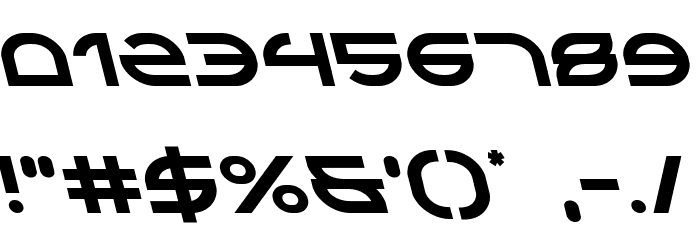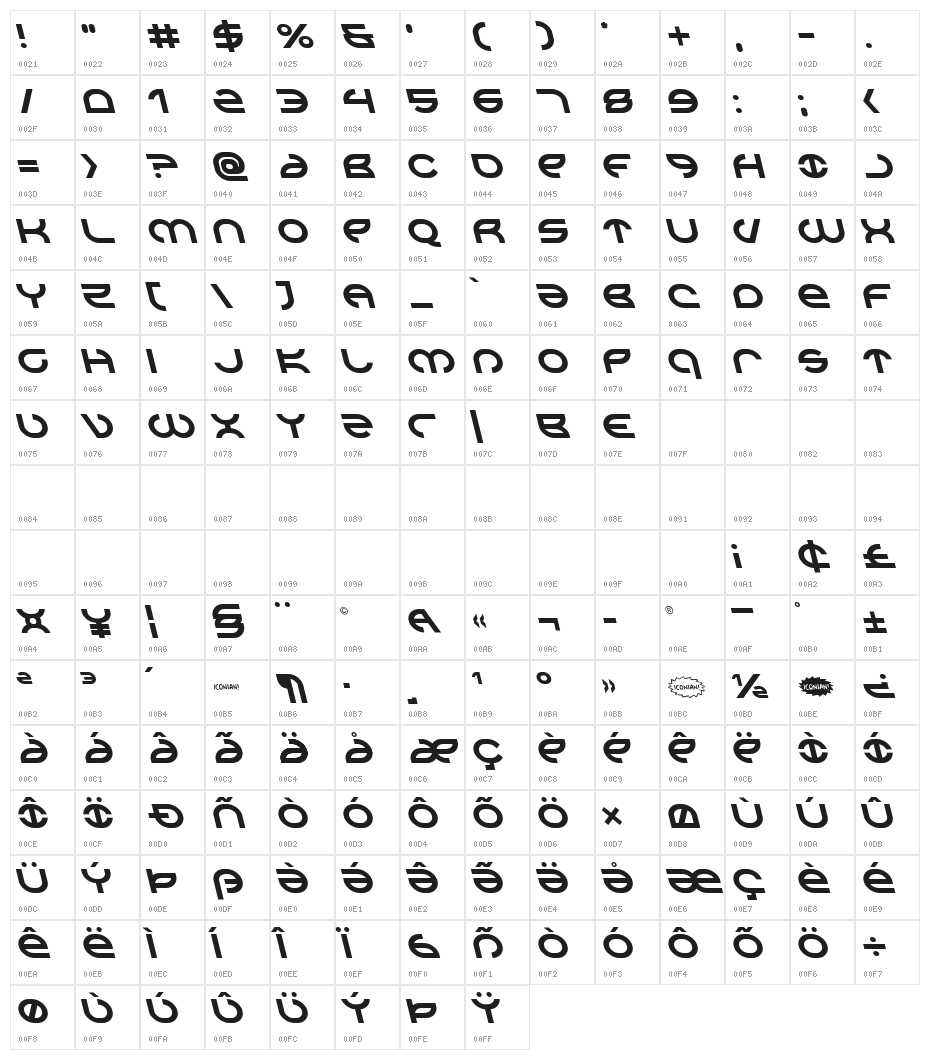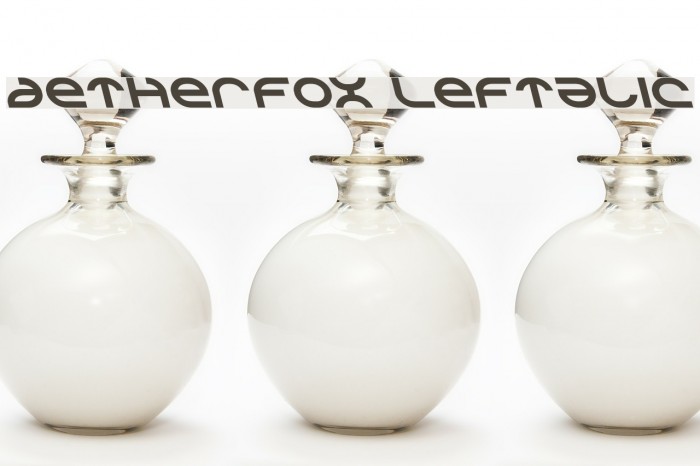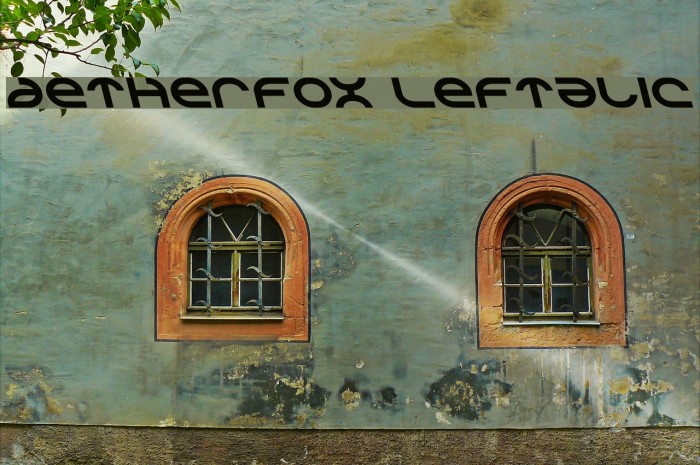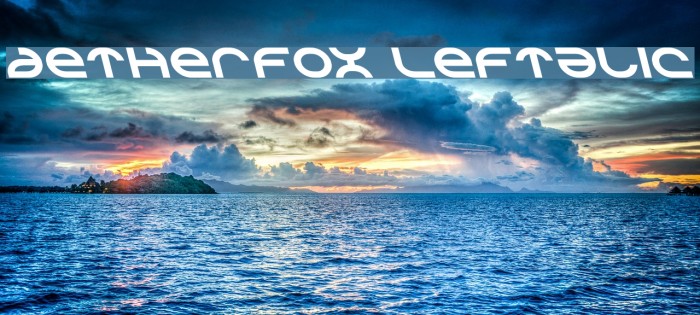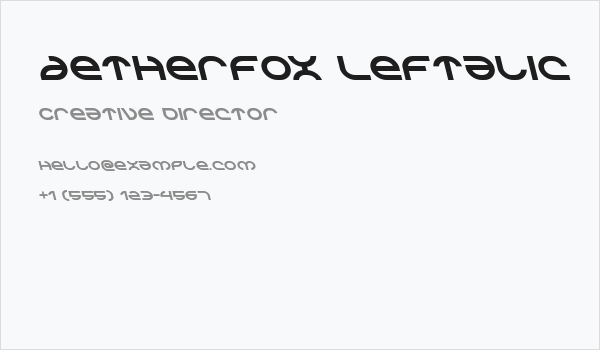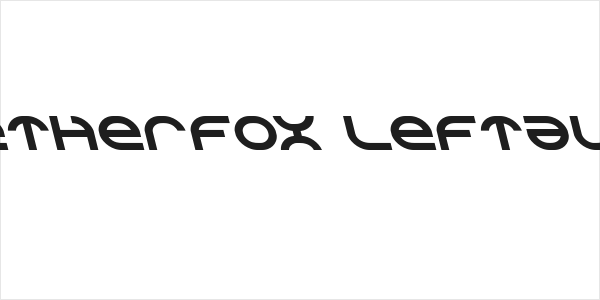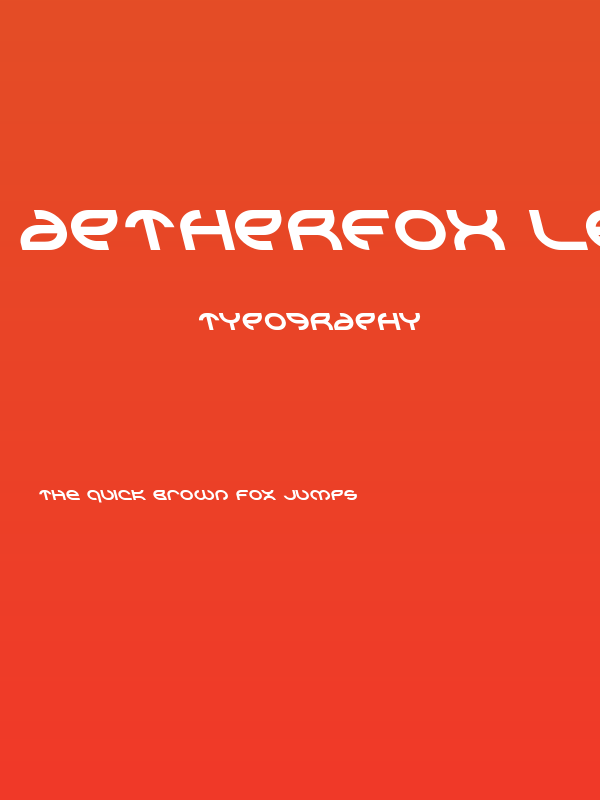
Aetherfox Leftalic Font
Aetherfox Leftalic Description
This font features a futuristic and geometric design, characterized by its unique angular cuts and bold, thick strokes. The letters are slightly slanted, giving a dynamic and forward-moving appearance. The uppercase and lowercase letters maintain a consistent style, with a modern and edgy look. Numbers and special characters follow the same design principles, ensuring uniformity across all glyphs. The font's distinct style makes it stand out, suitable for projects that require a contemporary and innovative touch.
| Proposed Projects | Ideal for sci-fi themed designs, technology branding, video game titles, and modern posters. |